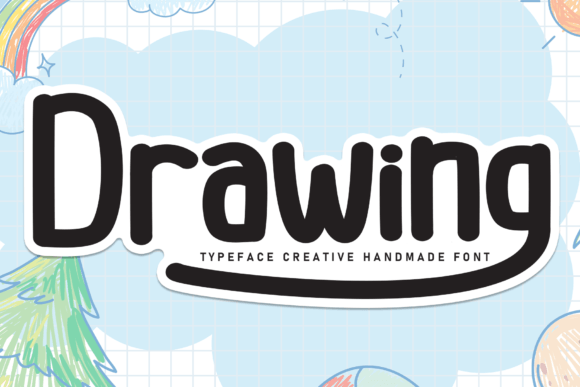
The Sweetest Touch: Introducing Drawing Font
Do you remember that moment when you first fell in love with a font? Maybe it was on a beautiful wedding invitation, or a quirky card from a friend. Whatever it was, it’s a feeling that designers know all too well – the thrill of discovering the perfect font to bring a project to life. For many, that font is Drawing Font, a sweet and friendly handwritten display font that adds a touch of whimsy to any design.
Whether you’re creating wedding invitations, cards, or any other design that needs a fun touch, Drawing Font is the perfect companion. Its cute and playful style is sure to bring a smile to anyone’s face, making it a valuable asset for designers looking to add a little personality to their work.
Design Review: Drawing Font
Overall, I’m impressed with the creativity and originality of Drawing Font. It’s clear that the designer had a clear vision in mind when creating this font, and it shows. Here are some things that I think work well: ✨
- Unique blend of hand-drawn and digital elements
- Good balance of whimsy and sophistication
- Effective use of negative space to create visual interest
- Comes in a variety of weights and styles to suit different design needs
That being said, there are a few things that I think could be improved: ⚠️
- Some of the letterforms feel a bit inconsistent in terms of weight and spacing
- The font could benefit from more comprehensive language support (e.g. Cyrillic, Greek, etc.)
- Some users may find the font’s quirks and irregularities to be distracting or hard to read
Overall, I think Drawing Font is a solid addition to any designer’s toolkit. While it may not be perfect, it’s definitely a unique and interesting choice that can add some much-needed personality to a design. With a bit of tweaking and refinement, I think this font could be truly exceptional.